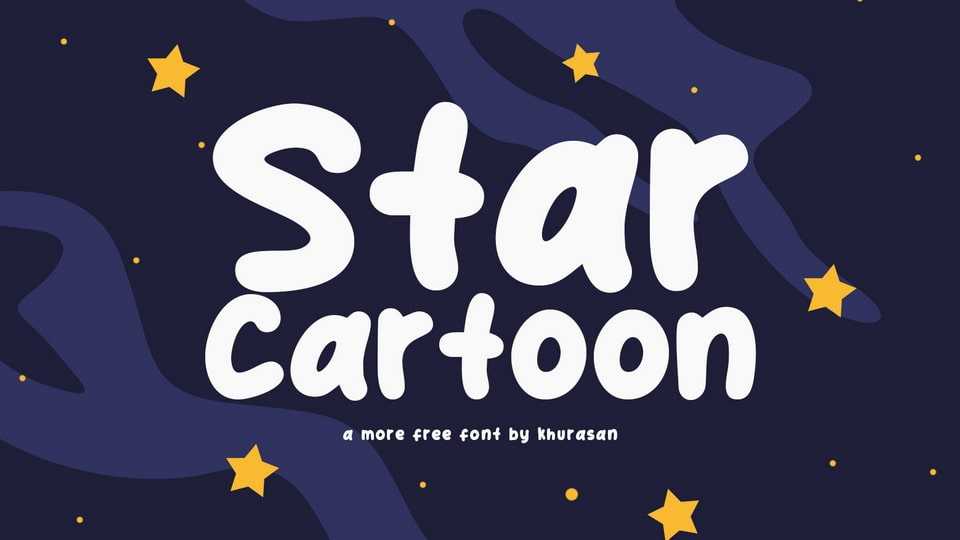
Download Star Cartoon font, a smooth, natural handwritten font designed to bring good vibes. Add a playful and quirky touch to your designs with Star Cartoon font.